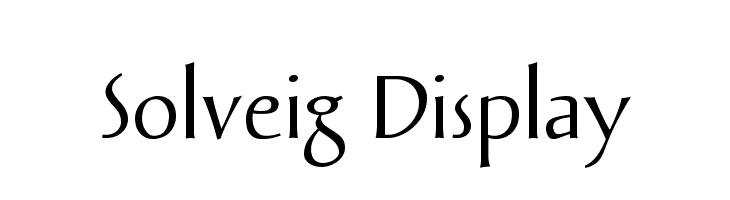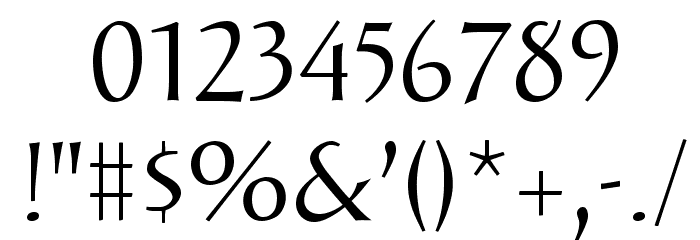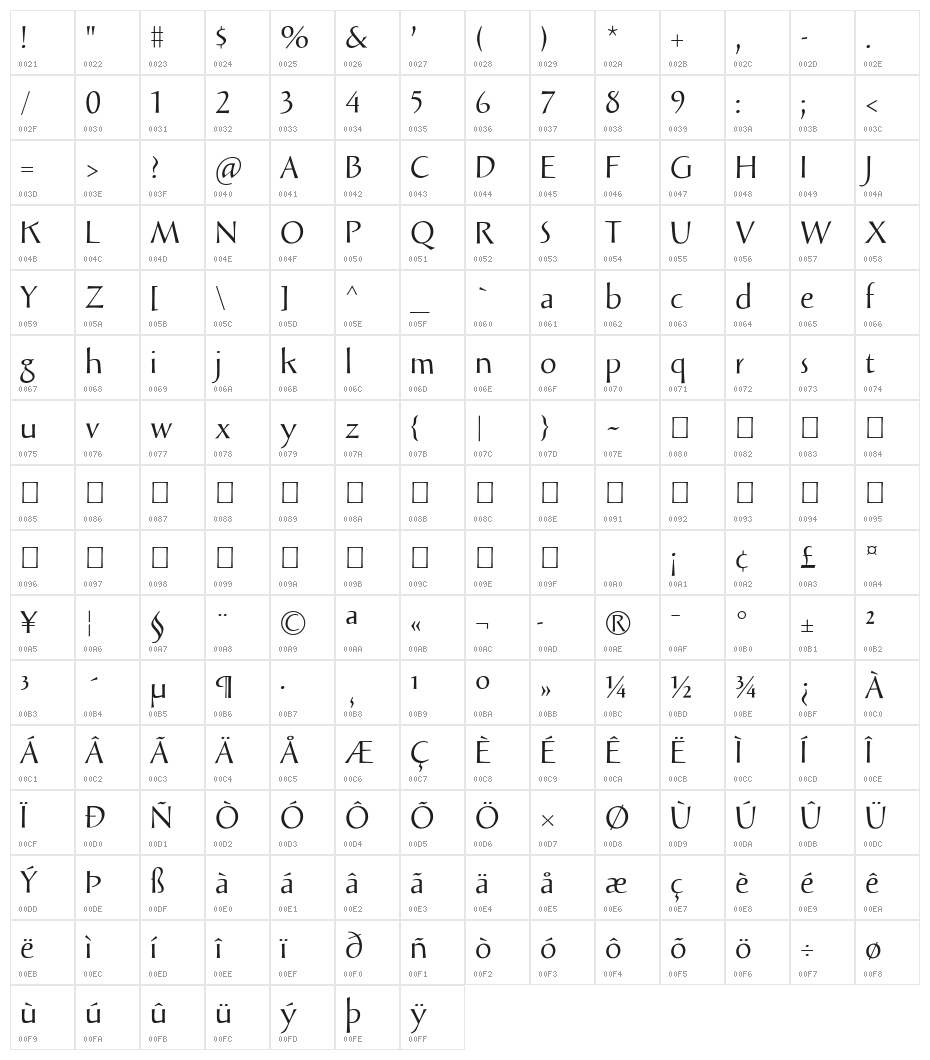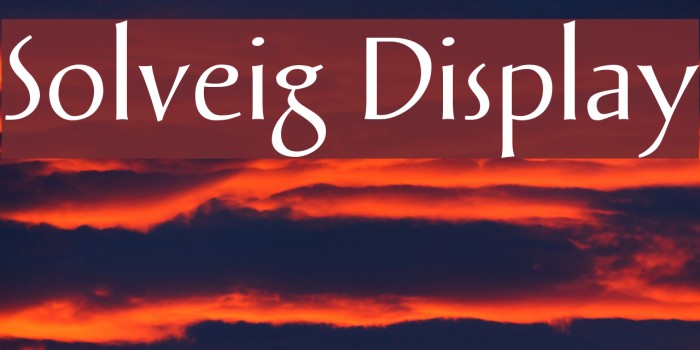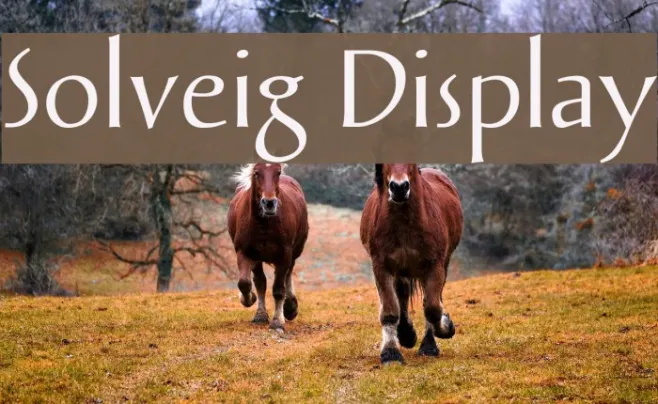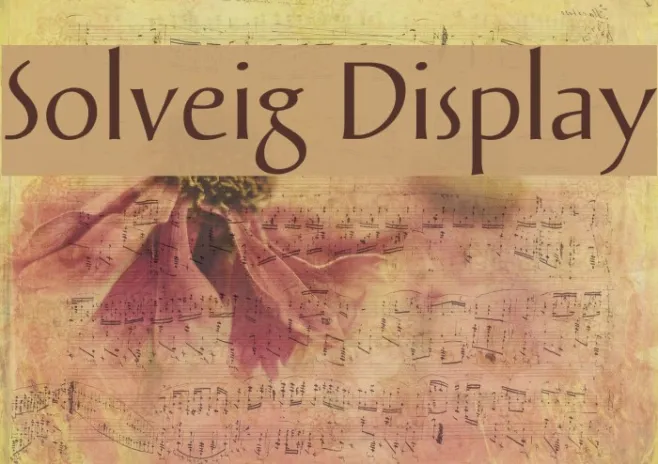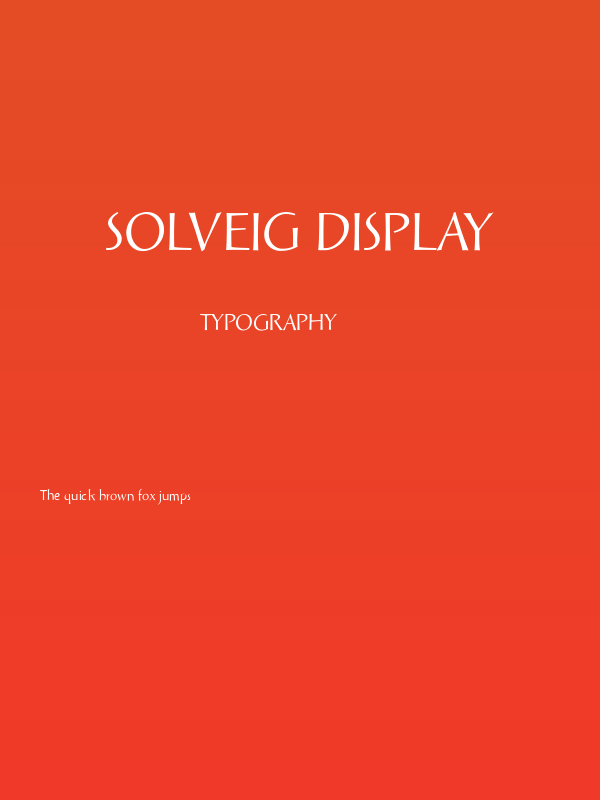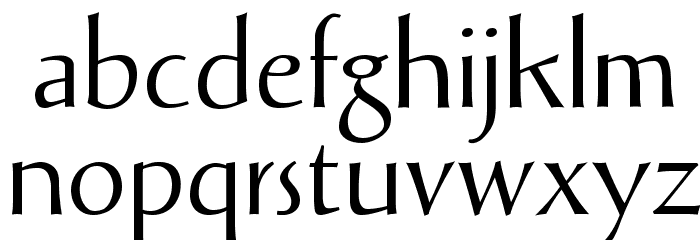
Solveig Display Font
Solveig Display Description
This font features a distinctive and elegant style, characterized by its sharp, angular serifs and high contrast between thick and thin strokes. The uppercase letters exhibit a strong presence with their tall, narrow forms, while the lowercase letters maintain a graceful flow with subtle curves. The numerals are designed with a similar attention to detail, ensuring readability and aesthetic harmony. Special characters are crafted with precision, adding to the font's versatility. Overall, this font combines traditional serif elements with a modern twist, making it suitable for a variety of design applications.
| Proposed Projects | Ideal for editorial design, luxury branding, book covers, and high-end packaging. |